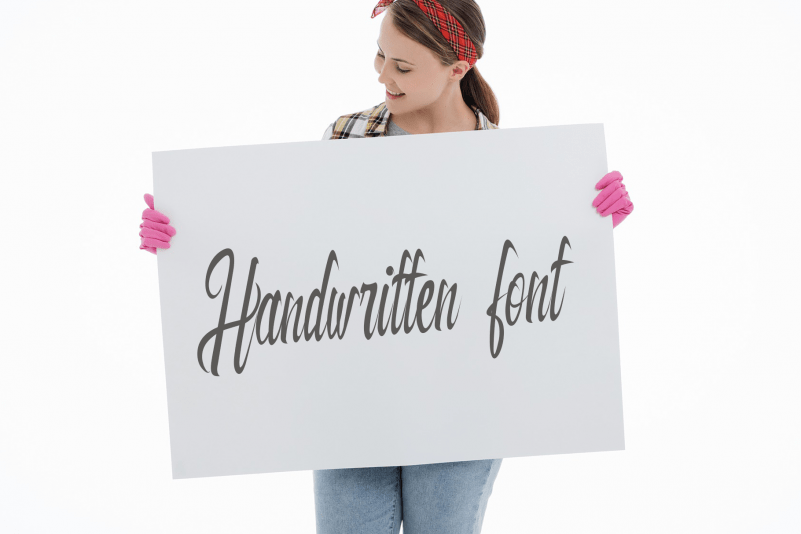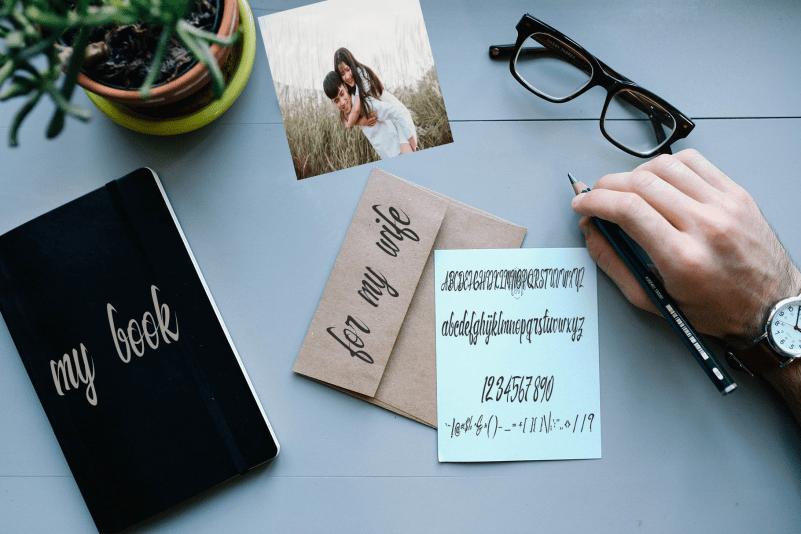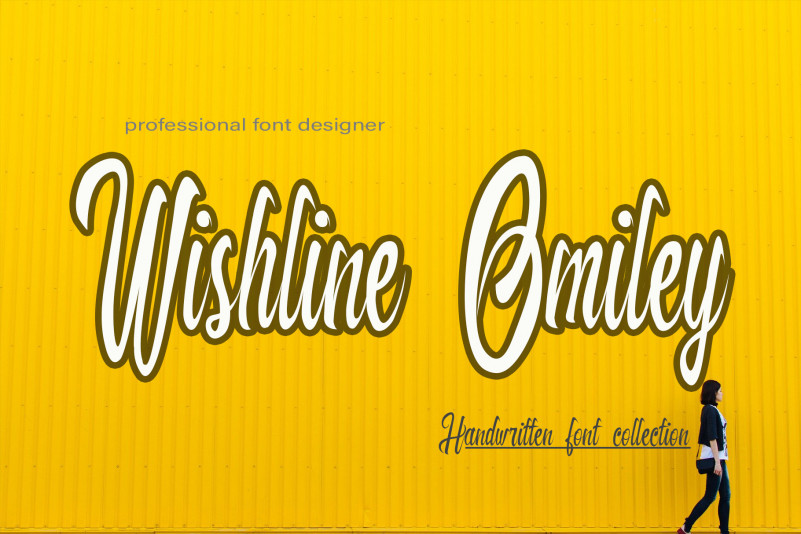
Wishline Omiley Font
Wishline Omiley Script Font
Wishline Omiley Font is a modern and fun handwritten font. Use it to make your ideas even more realistic and create spectacular designs!